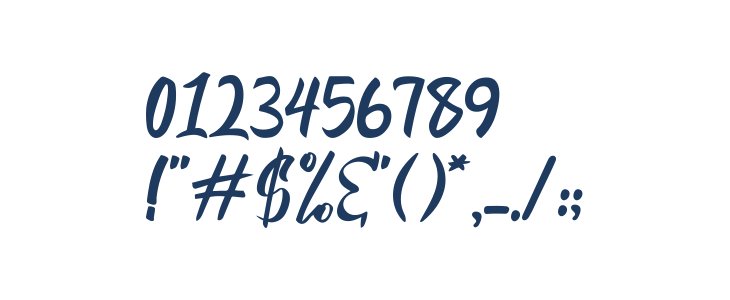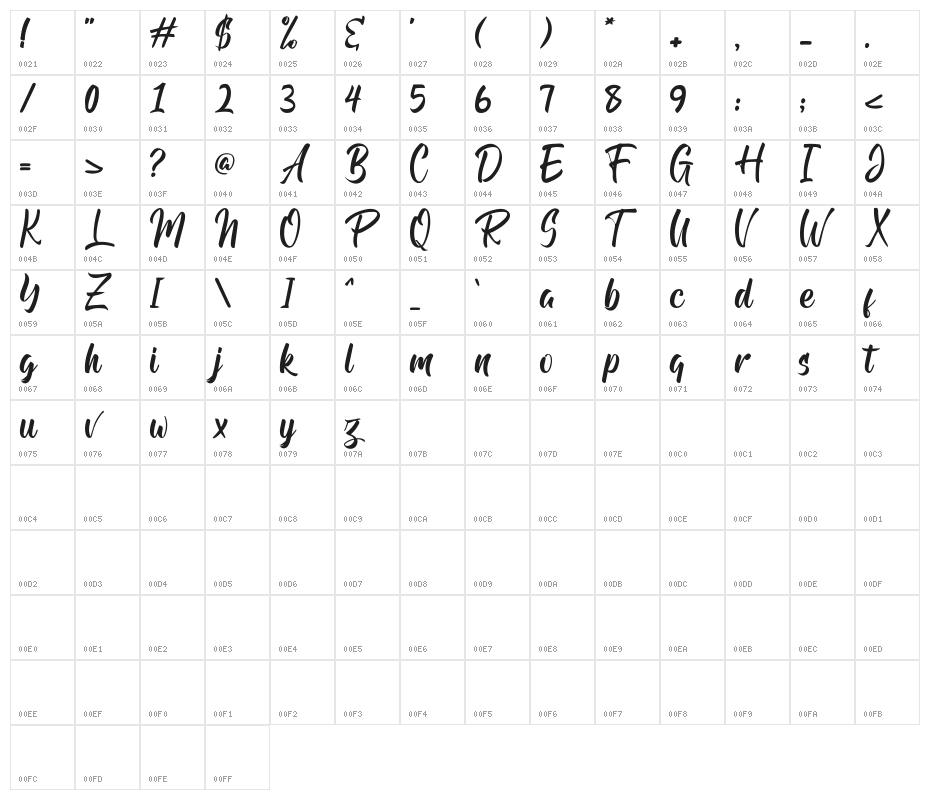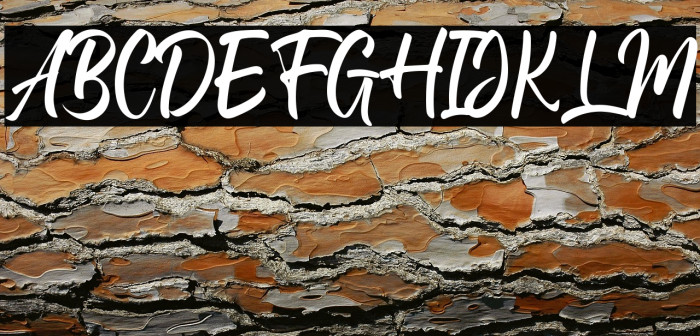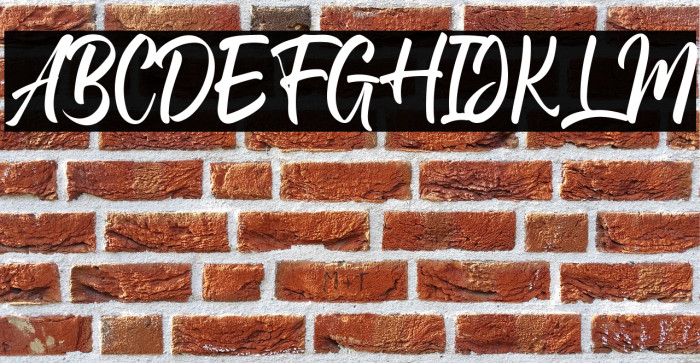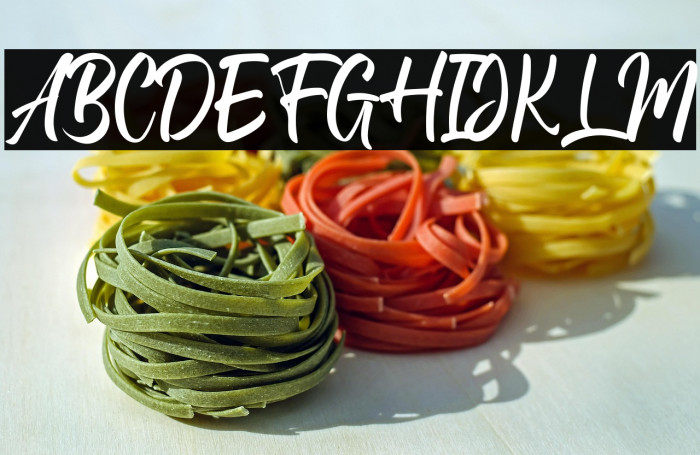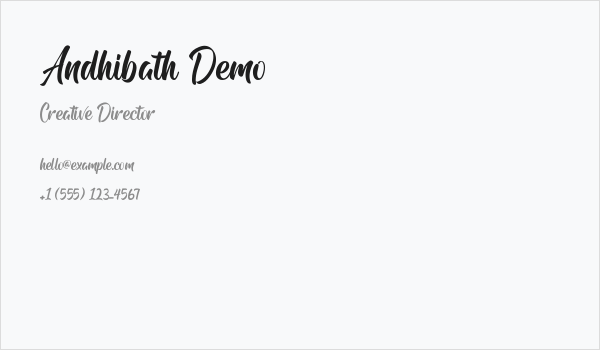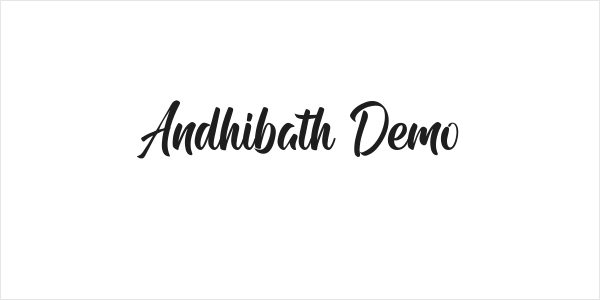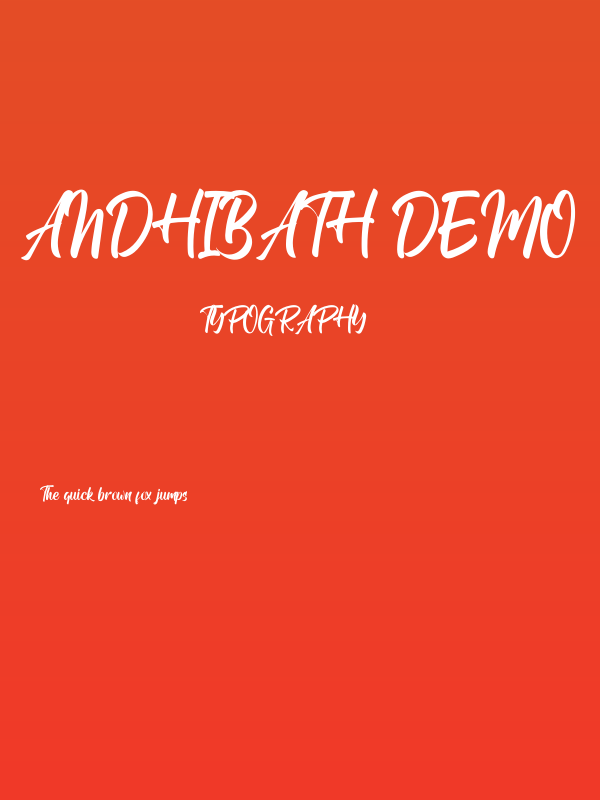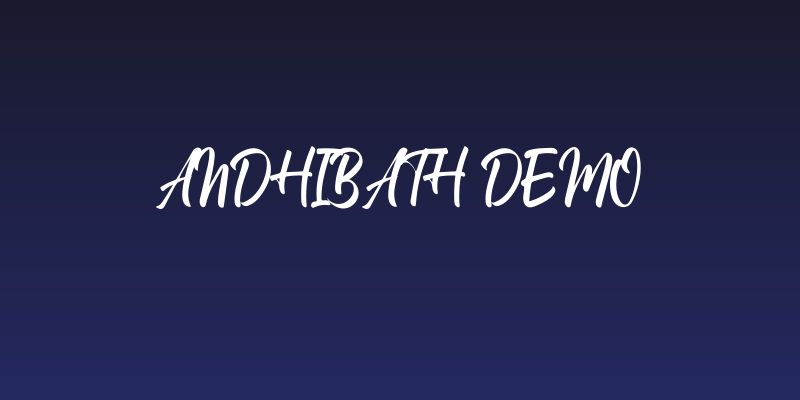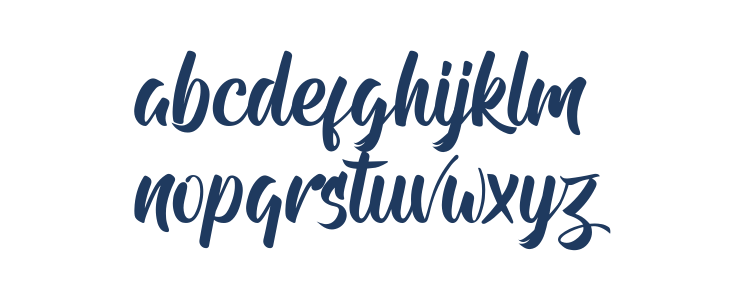
Andhibath Demo Font
Andhibath Demo Description
This font features a dynamic and expressive script style, characterized by its fluid and bold strokes. The uppercase letters exhibit a sense of movement with their sweeping curves and varying line thickness, creating a lively and energetic appearance. The lowercase letters maintain this fluidity, with a slightly more compact form that complements the uppercase. Numbers and special characters are crafted with the same attention to detail, ensuring consistency across all glyphs. The overall design is modern and artistic, making it suitable for projects that require a touch of elegance and flair. Its bold presence makes it ideal for headlines, logos, and other display purposes where a strong visual impact is desired.
Proposed ProjectsIdeal for branding, logo design, headlines, and creative projects that require a bold and expressive typeface.